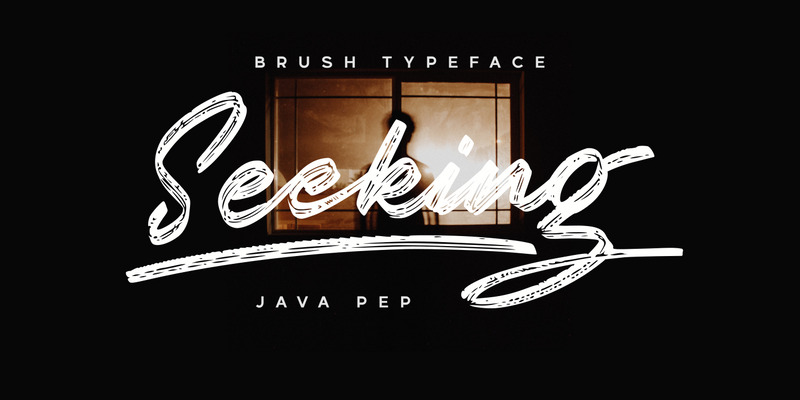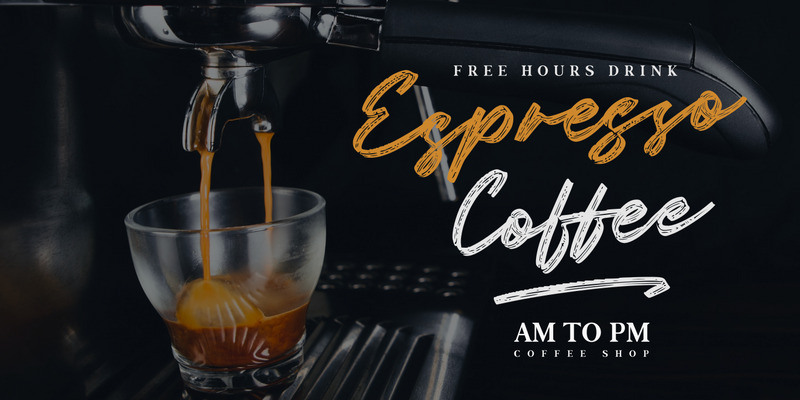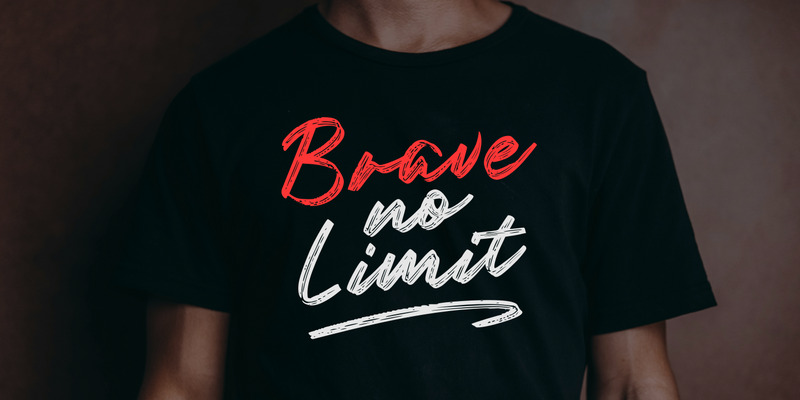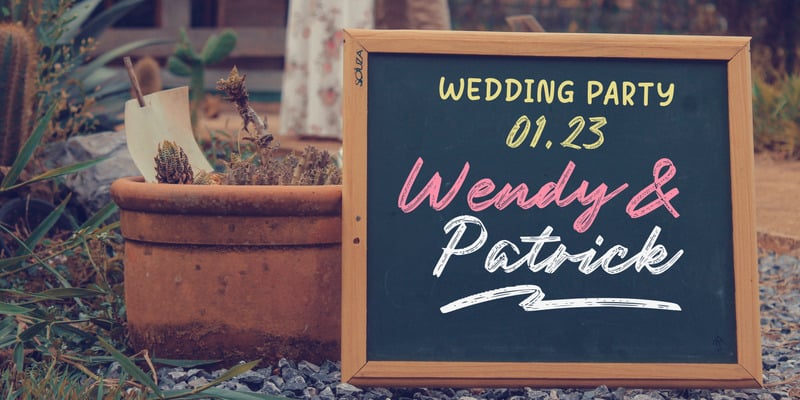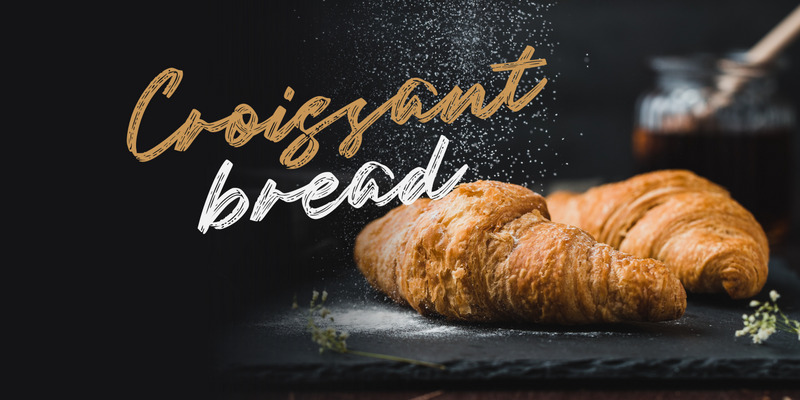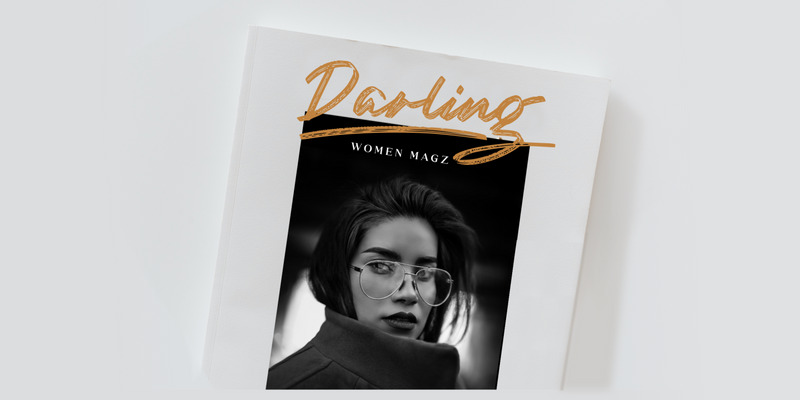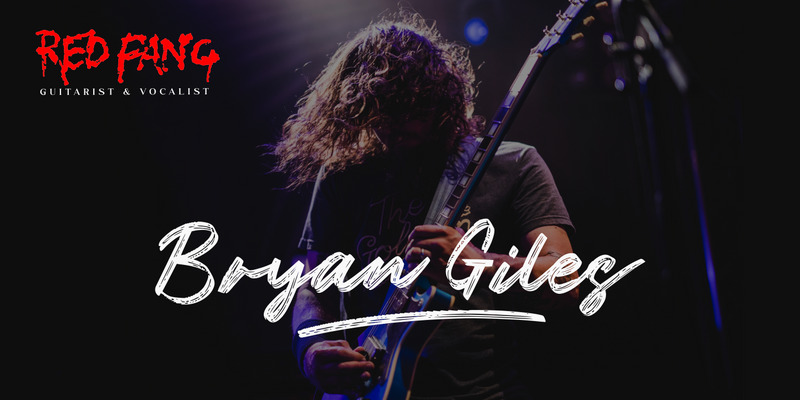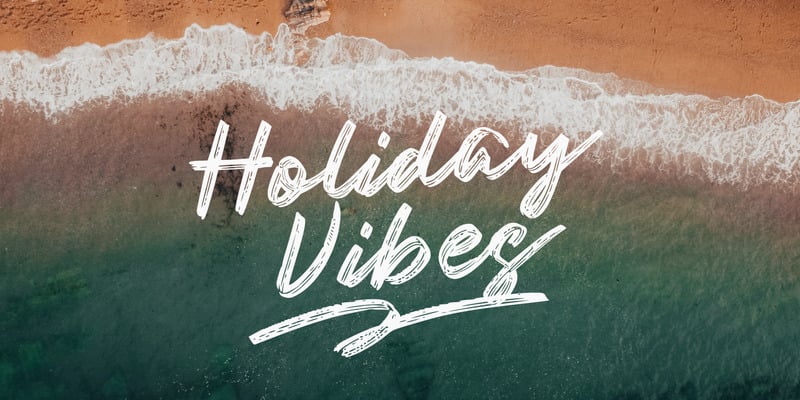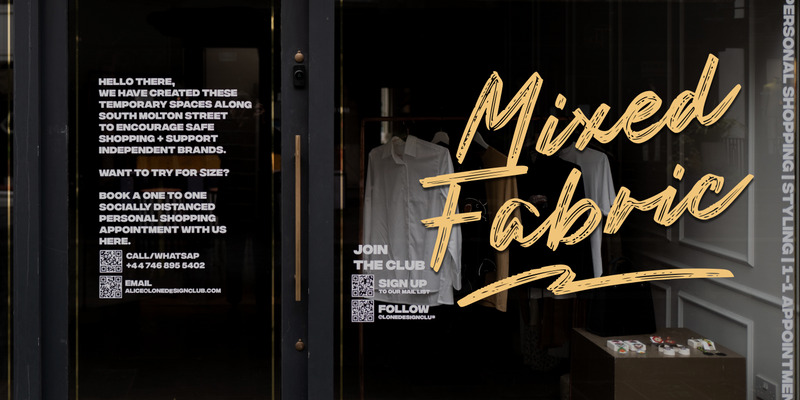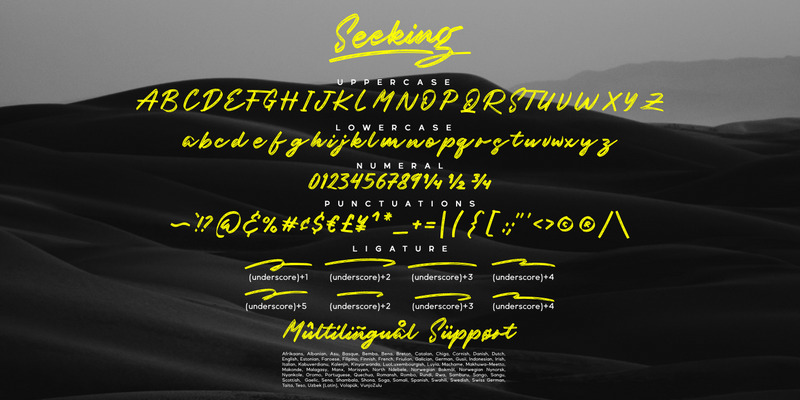
Seeking / casual brush font
Introducing Fresh from the Oven, a casual handwritten brush font with a signature style called Seeking font. This font comes with ligature and swash, Seeking font is perfect for logotype, display text, headline, branding, advertising, social media posts, etc. Seeking font available for multilingual support that more than 25 languages.